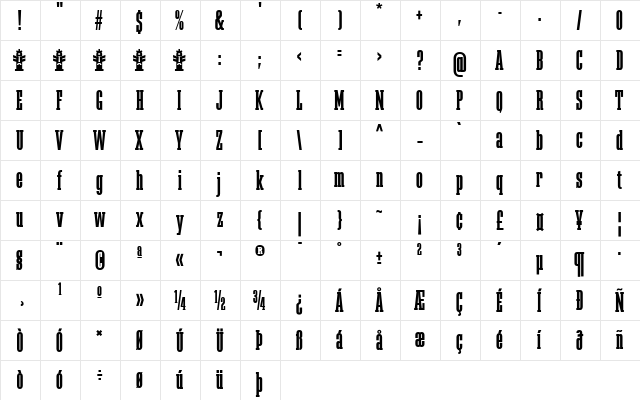
Megalito Slab ExtCond Regular
| Foundry | deFharo |
| Designer | Fernando Haro |
Design Context for Megalito Slab ExtCond Typeface
Megalito Slab ExtCond combines the readability of serif typography with the visual weight of a slab construction, resulting in a typeface that feels both authoritative and approachable. The condensed width makes it efficient for tight spaces without sacrificing legibility.
Works well in editorial design, news publishing, impactful branding, and poster typography.
Pro Tip: Try Megalito Slab ExtCond set tight in headlines for a classic editorial feel. Its slab serifs create strong horizontal rhythm that anchors a page layout.